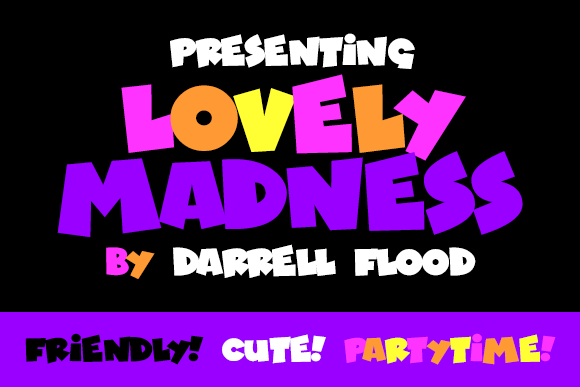
Lovely Madness Font
Step into the whimsical world of Lovely Madness Font, where imagination and playfulness dance on the tip of each letter. This captivating display font, crafted by the talented Darrell Flood, oozes individuality and charm, making it the perfect companion for your creative adventures.
Journey through the colorful vistas of comic books, where Lovely Madness Font brings your characters to life with its bold and playful strokes. Watch as the vibrant hues of your animations burst onto the screen, infused with the infectious energy of this remarkable font. Let your imagination run wild as you create captivating children's themes, where every word dances with delight and transports readers to a realm of wonder.
The thickness of Lovely Madness Font lends it a robust presence, ensuring it stands out among the crowd. Yet, within this boldness lies a touch of informality, inviting your readers to relax and immerse themselves in the lighthearted narrative you weave. Each letter exudes friendliness, like a warm embrace that welcomes readers into your tale.
With Lovely Madness Font, you hold the key to unlocking a world of creativity and enchantment. Its playful nature inspires smiles, while its readability ensures your message shines through. Unleash the magic of this font and watch as your words transform into an extraordinary visual symphony.